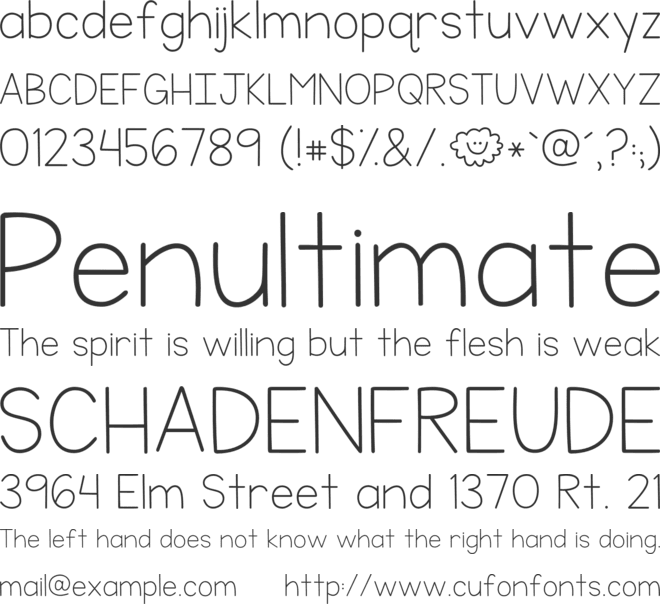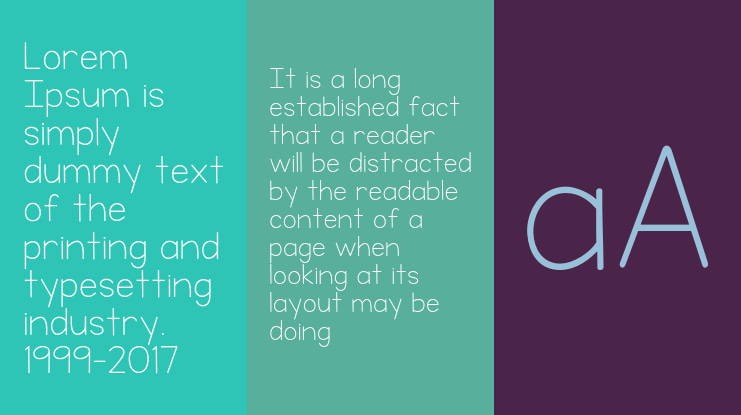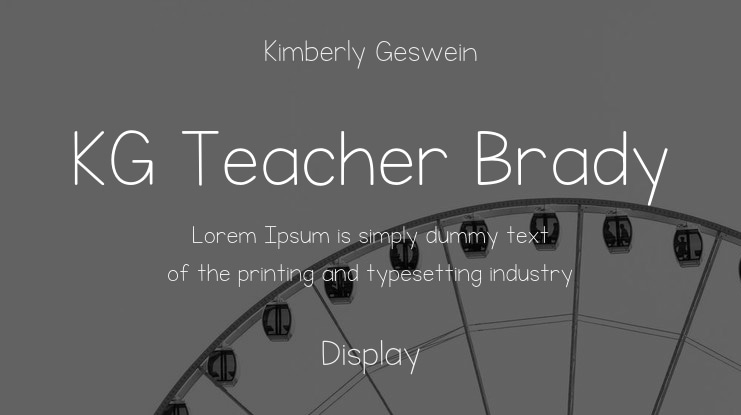
KG Teacher Brady Font
Kimberly Geswein
Brought to you by the KG Fonts TikTok follower-submitted handwriting spotlight series, KG Teacher Brady is perfect for teachers! KG Teacher Brady is neat, fresh, light, and so incredibly legible!